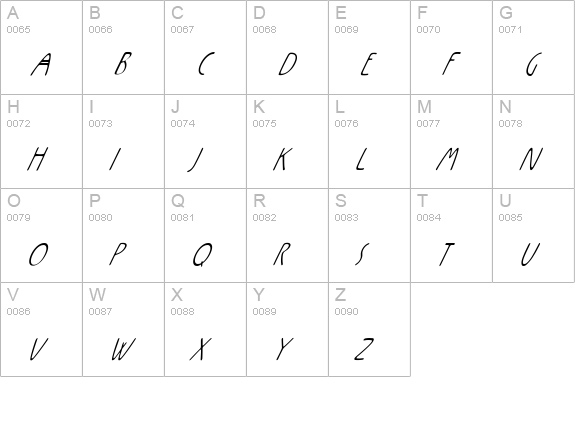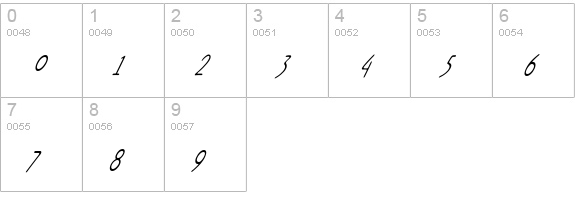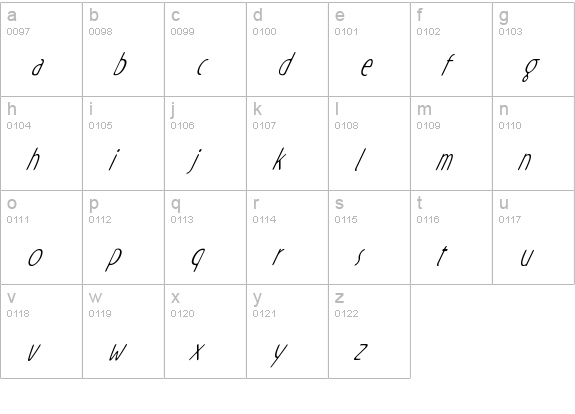
Rx-ZeroOne Font Details
Rx-ZeroOne font is a sleek and modern typeface that exudes a sense of sophistication and innovation. Its clean lines and contemporary design make it perfect for a wide range of projects, from branding and marketing materials to web design and packaging. The font features a unique blend of sharp angles and smooth curves, giving it a distinctive and eye-catching look. What sets Rx-ZeroOne font apart is that it is available for free download at FontsMarket.com. This means that you can easily access this stylish and versatile font without having to spend a penny. Whether you're a professional designer looking to add a fresh touch to your projects or a student working on a creative assignment, Rx-ZeroOne font offers a high-quality and cost-effective solution for all your typographic needs. With its bold and dynamic appearance, Rx-ZeroOne font is sure to make a statement and leave a lasting impression. So why wait? Download this fantastic font today and elevate your designs to the next level.